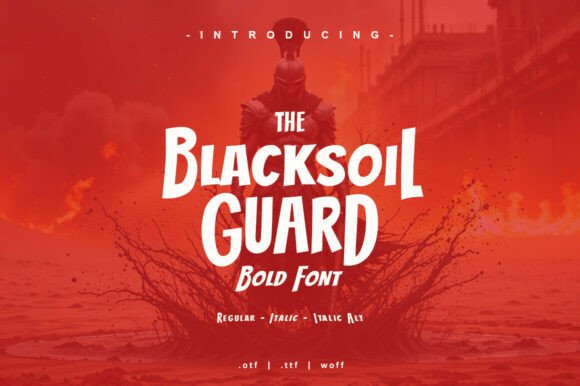
The Ultimate Display Font: A Deep Dive into Blacksoil Guard
Ah, the elusive perfect font. You know, that one design element that can elevate your project from meh to mesmerizing. I’ve been there, done that, and got the t-shirt (which, by the way, was designed with a fabulous font that I’m still searching for). But today, I want to share with you a game-changer: Blacksoil Guard, an incredibly unique display font that’s about to become your new best friend.
A Moment of Frustration and Discovery
I recall working on a branding project for a client who wanted something bold, yet elegant. I scoured font libraries, but nothing seemed quite right. That was until I stumbled upon Blacksoil Guard. Its masterful design and versatility immediately caught my attention. I knew right then and there that this font had the potential to bring each of my creative ideas to the highest level!
- ✨ Unique and eye-catching design that stands out in any project
- ✅ Highly legible, even in smaller sizes (for a display font, that is)
- 💥 Extensive OpenType features, including stylistic alternates and glyphs, giving you plenty of creative freedom
- 🎨 Perfect for a wide range of projects, from luxury branding to creative crafts
While Blacksoil Guard is an amazing font, there are a few things to keep in mind:
- ⚠️ It might be a bit overkill for body text; it’s truly designed for display purposes
- 🤔 Some of the more intricate details might not render well in very small sizes or on low-resolution screens
The Inspiration Behind Blacksoil Guard
While the actual origins of Blacksoil Guard remain a mystery, it’s easy to imagine that its designer was inspired by a mix of industrial grit and elegant sophistication. Perhaps a late-night drive through the rugged landscapes, interspersed with moments of refined luxury, sparked the creativity behind this unique font.
Q: Is Blacksoil Guard suitable for body text?
A: While it’s technically possible, Blacksoil Guard is optimized for display use. For body text, you might prefer a font with better readability and less ornamentation.
Q: How does Blacksoil Guard compare to other display fonts?
A: Blacksoil Guard stands out due to its unique blend of industrial edges and luxurious details. It’s perfect for projects that need a bold statement without being too over-the-top.